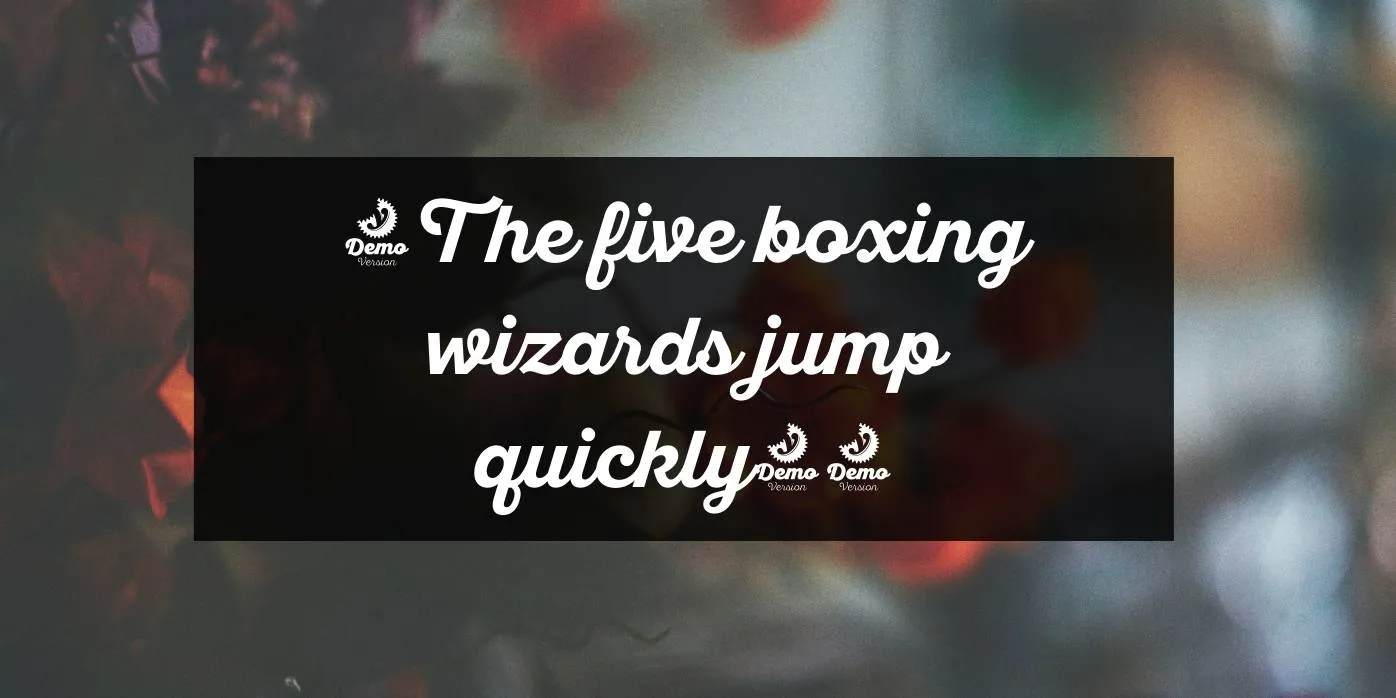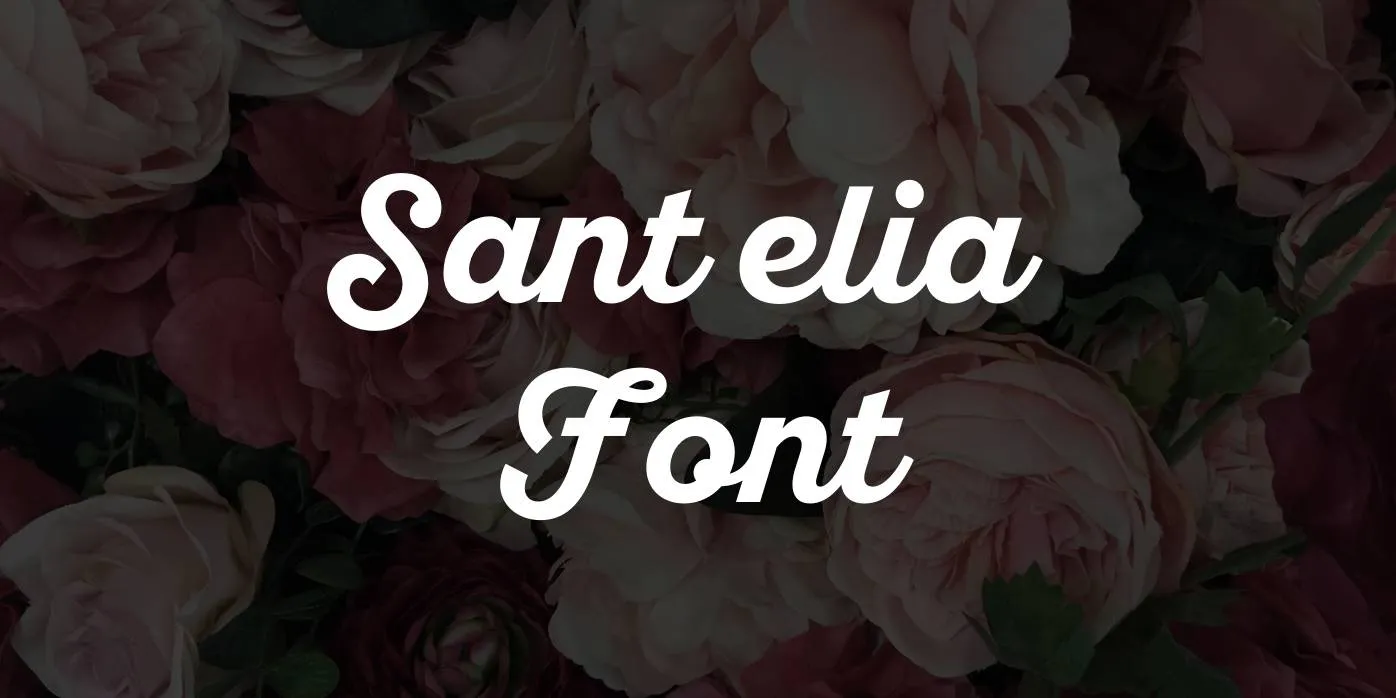
Sant Elia Font
Today, we are going to discuss a very popular typeface that is known by the name Sant Elia Font. This typeface was developed by Yellow Design. It belongs to the script typeface. As the name suggests, it was inspired by the Italian architect Antonio Sant’Elia.
This cute typeface is perfect for those who are looking for something different than the usual script fonts. The best thing about Sant Elia Font is that it comes in 6 different weights. This means that you can use it for various purposes. For instance, you can use it for headlines as well as body text.